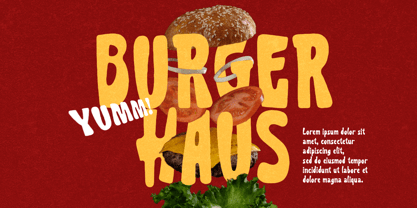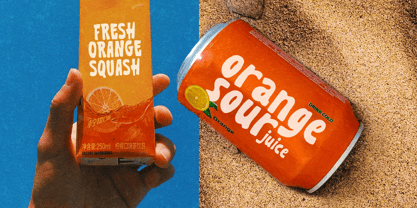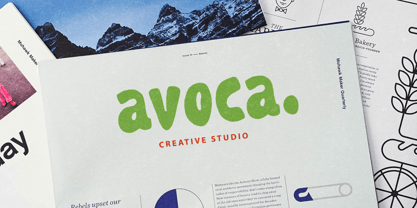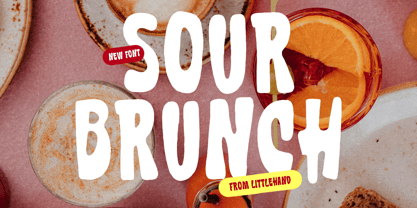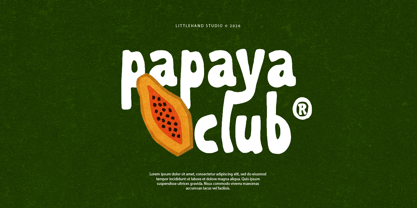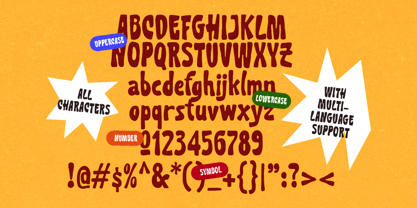
Sour Brunch
Die Schriftfamilie Sour Brunch wurde von Aryo Pamungkas entworfen und von Littlehand veröffentlicht. Sour Brunch enthält 2 Stile und Familienpaketoptionen. Mehr über diese Familie
Sour Brunch is a bold, bubbly display font with chunky curves and soft edges, like melted marshmallow on a sunny weekend. the letters feel hand-drawn, imperfect in a charming way, giving it a friendly and playful attitude. this font works great for posters, food branding, café menus, social media graphics, and fun headlines. Features : Uppercase & lowercase Numbers and punctuation Alternates & Ligatures Multilingual Support PUA encoded
Littlehand is a collective type foundry based in Yogyakarta, Indonesia, focused on designing playful, cute, and cheerful fonts. As part of the Letterhend studio, Littlehand was created as a dedicated space to explore friendly and expressive typography with a warm and approachable character. Littlehand’s typefaces are thoughtfully crafted to support creative projects that value joy and personality, including children’s designs, branding, packaging, social media, and visual storytelling.